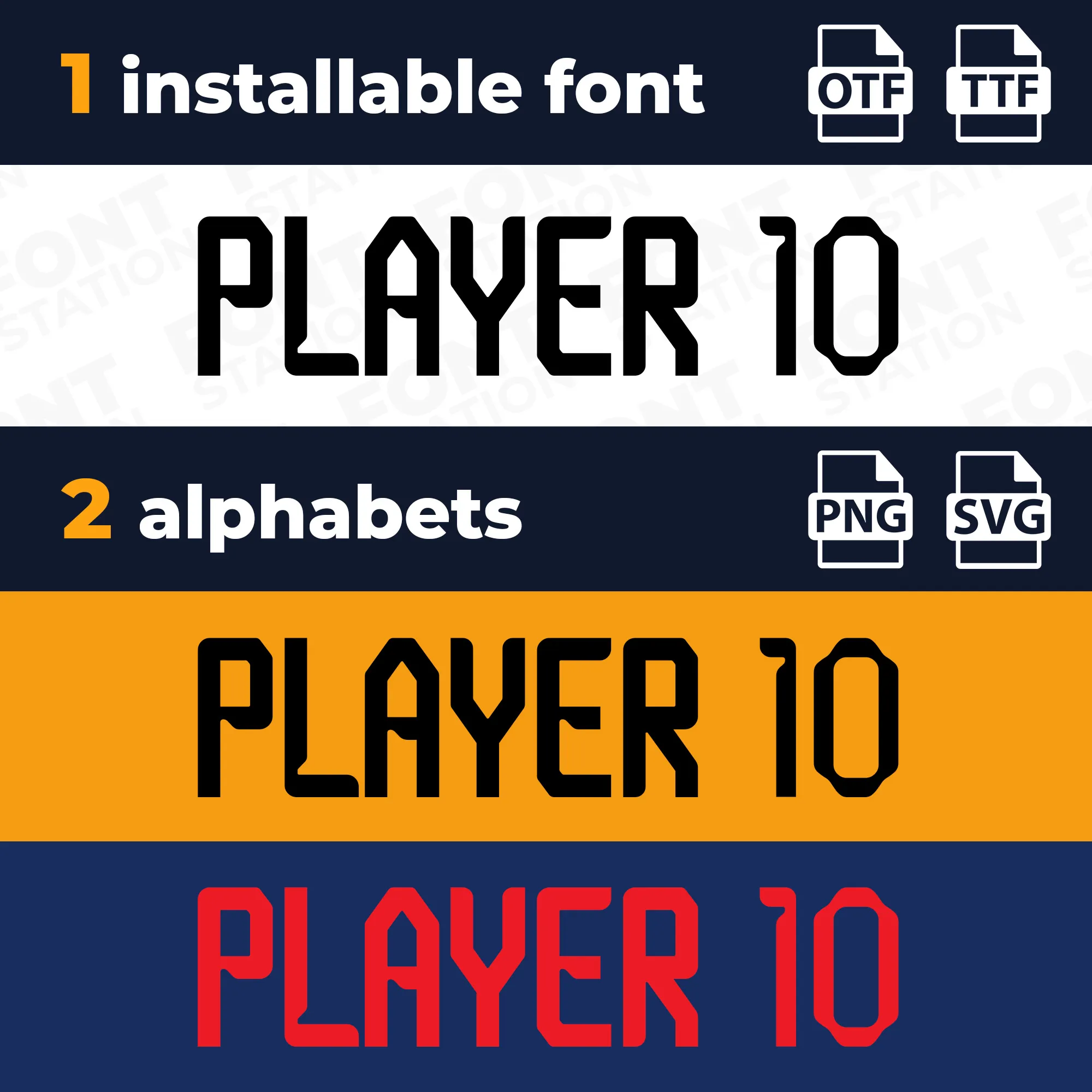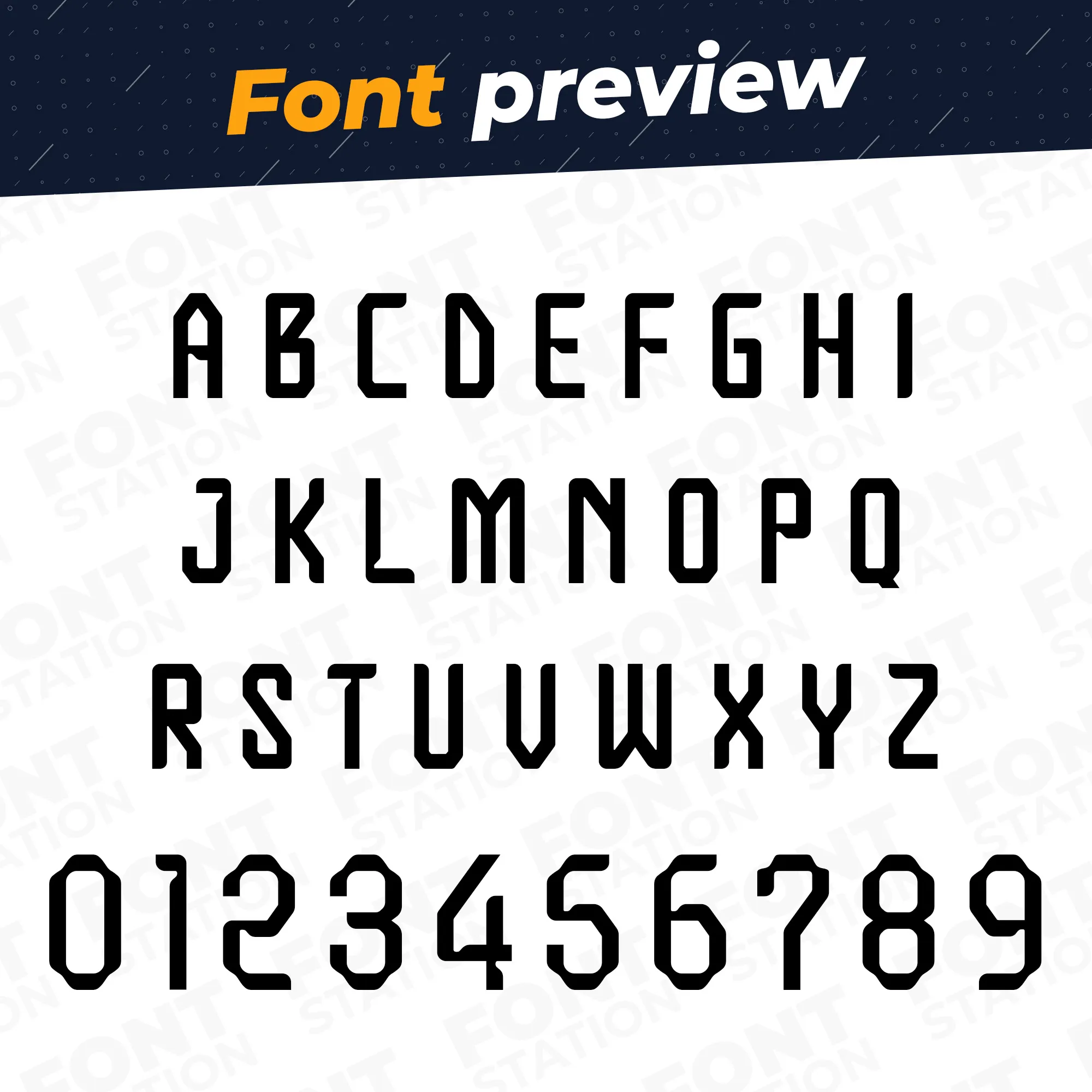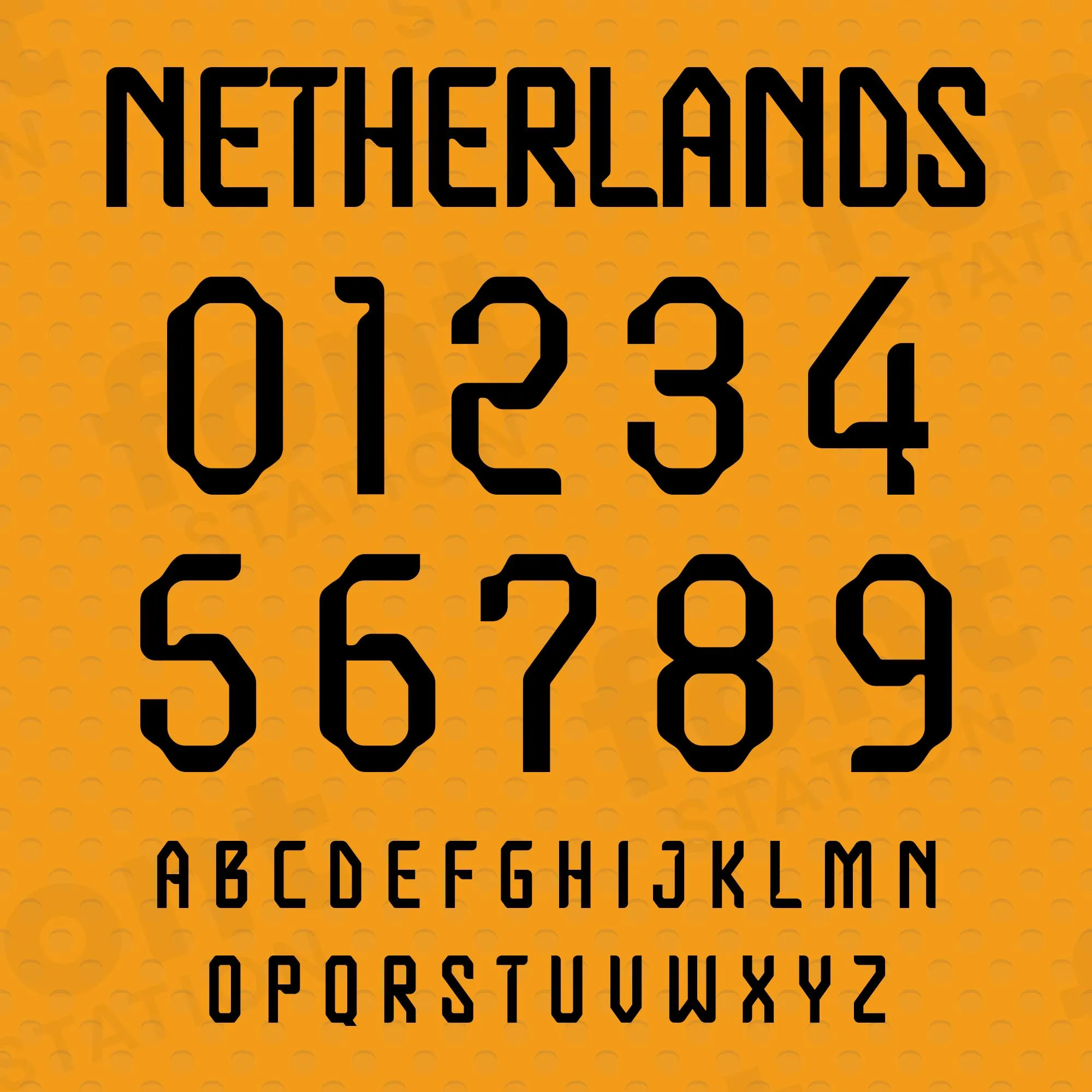
Our Netherlands Football typeface, inspired from the official Netherlands Soccer font from the World Cup 2022
Image showing all characters available in the Netherlands Soccer font Jersey created by FontMaze.
Netherlands Soccer Font – World Cup 2022